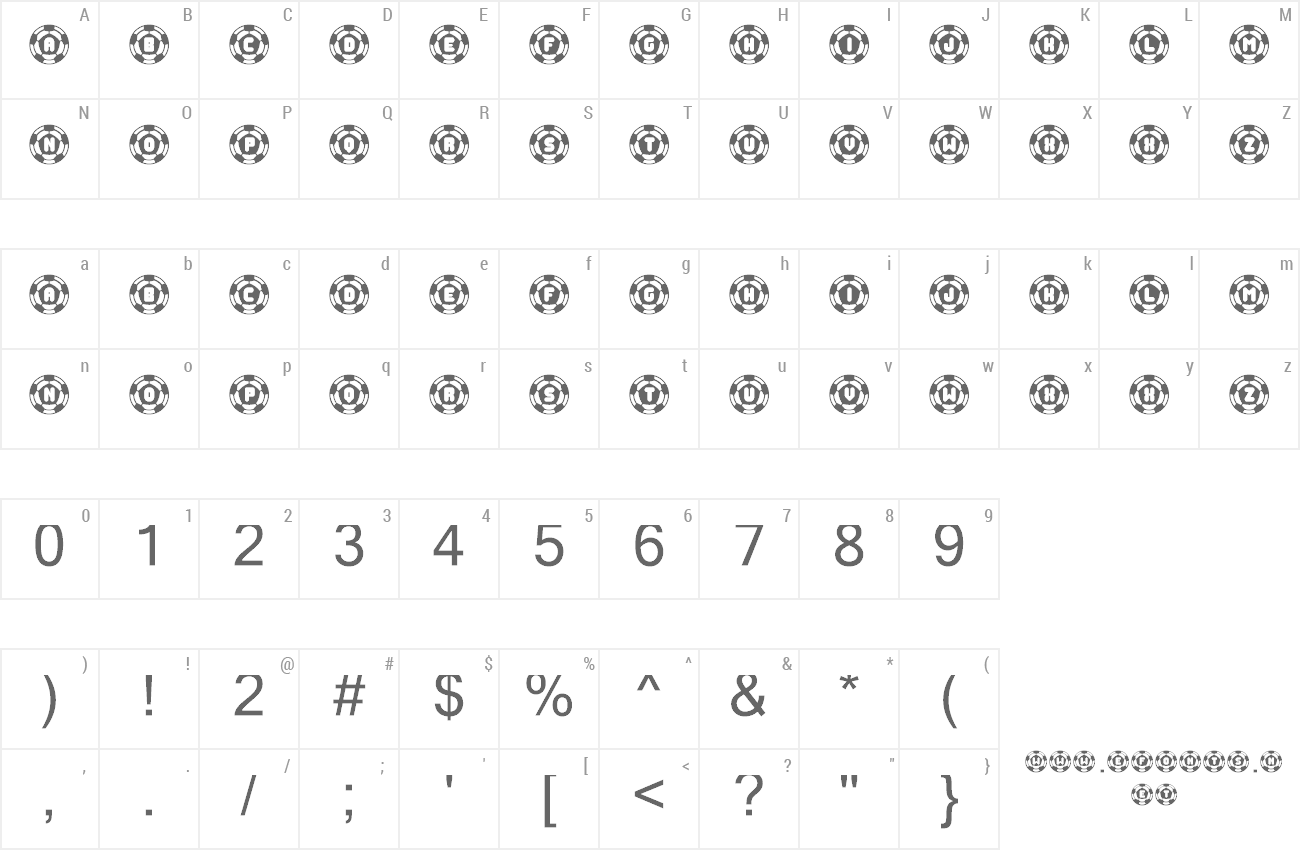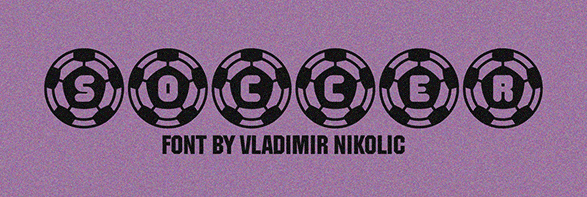
Preview and download Soccer Font. Created by Vladimir Nikolic in Fancy Decorative styles with Free for personal use license.
"Soccer" is a unique decorative font. It is the perfect choice for all the soccer lovers. Free for personal use. For commercial use, please order a license here: https://www.creativefabrica.com/product/soccer-6/ref/144265/ |